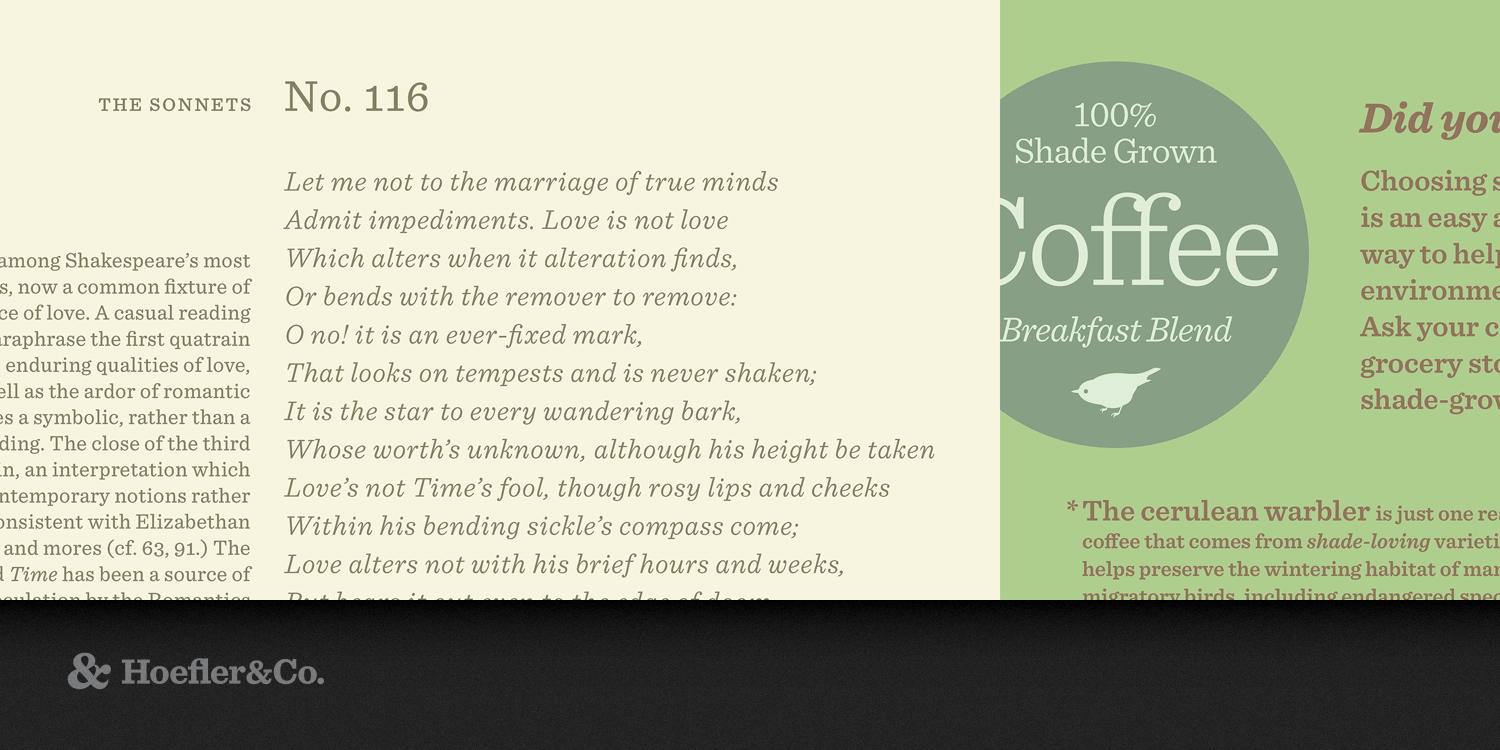
The Sentinel Font is a powerful and dependable slab-serif typeface, celebrated for its sturdy construction, exceptional clarity, and warm, inviting character. Imagine its confident forms providing a reliable foundation for corporate branding across various industries, adding a strong yet friendly touch to editorial designs in magazines and newspapers, or forming the backbone of engaging web interfaces and mobile applications. Sentinel Font also excels in packaging design, educational materials, and any context where clarity, efficiency, and a robust yet approachable aesthetic are important. Its balanced proportions and subtle humanistic touches ensure your message is conveyed with both precision and warmth, making it a highly adaptable choice for diverse projects.
What makes Sentinel Font so exciting is its masterful combination of the strength of slab serifs with the warmth and legibility typically found in humanist designs. It offers the sturdy presence of a classic slab serif but with a welcoming, almost comforting appeal that makes it incredibly inviting and easy on the eyes. This versatility allows it to seamlessly adapt to various tones, from authoritative and serious to friendly and engaging. Its outstanding legibility, even at small sizes and in demanding environments, is a key reason for its widespread adoption in professional environments. It’s more than just a typeface; it’s a reliable workhorse that consistently delivers clarity, efficiency, and a timeless modern aesthetic that feels both fresh and familiar. Designers value its extensive family, which provides precise typographic control for creating organized and visually appealing layouts.
The Sentinel Font family is truly comprehensive, offering a vast array of weights and styles that cater to virtually any design need. Beyond the core Sentinel Regular, the family typically includes a rich spectrum from ultra-thin weights like Sentinel Thin and Sentinel ExtraLight, through Sentinel Light, Sentinel Book, Sentinel Medium, Sentinel Bold, and up to heavy weights like Sentinel Black. Each of these weights usually comes with corresponding Sentinel Italic versions. Furthermore, professional versions often include extended character sets, small caps, and various numeral styles (e.g., old-style figures, lining figures), providing immense flexibility for sophisticated typesetting and complex design systems. This extensive range of family members ensures that designers can create intricate and harmonious typographic systems, maintaining a consistent, powerful, and friendly aesthetic across all elements of a project, from headlines to body text.